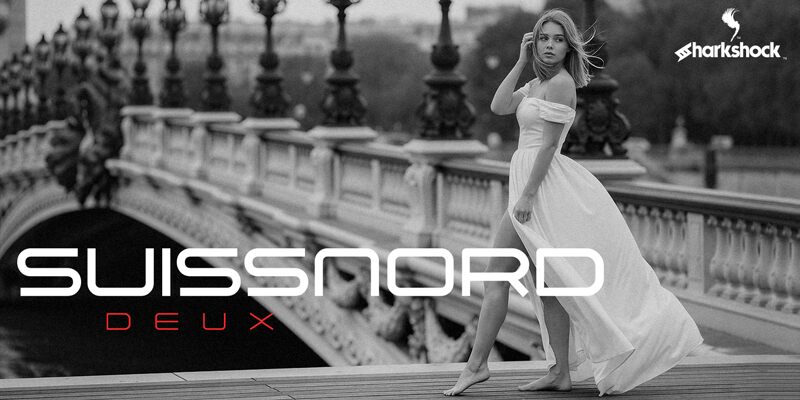
Suissnord Deux font is a free sans-serif font designed by Sharkshock. This sleek and modern typeface features minimalistic and geometric elements, highlighted by its futuristic look and clean lines. It offers a well-balanced design that is excellent for contemporary applications. It offers a stylish and creative design which can capture the attention of potential clients or website visitors.
Use it for logo designs, website designs, app designs, social media posts, advertisements, banners, flyers, greeting cards, packaging designs, book covers, and more.
In 2016, Suissnord was created to blend elegance with functional simplicity. After significant enhancements, this stylish display sans font evolved into Suissnord Deux. Remaining true to its legacy, it features rounded corners and sleek lines throughout the all-caps character set. The overall width has been reduced, and many glyphs were entirely redrawn. The result is a more refined and sophisticated look that emphasizes harmony, illustrated by the similar shapes shared among characters. This font is perfectly suited for company logos, spa signage, or mobile applications.